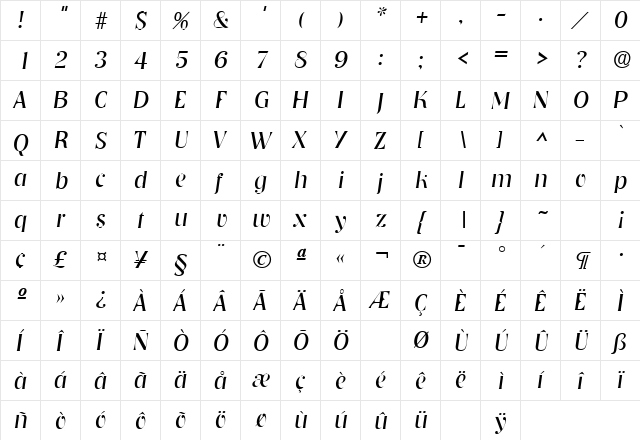
NashvilleLH Italic
Design Context for NashvilleLH Typeface
NashvilleLH takes a measured approach to typography — its balanced proportions and neutral character make it a reliable workhorse for both digital and print work. Its italic angle brings a sense of urgency and motion to the letterforms.
Pro Tip: Try NashvilleLH for annotation and caption copy alongside an upright companion — the contrast in angle creates a dynamic but ordered typographic system.